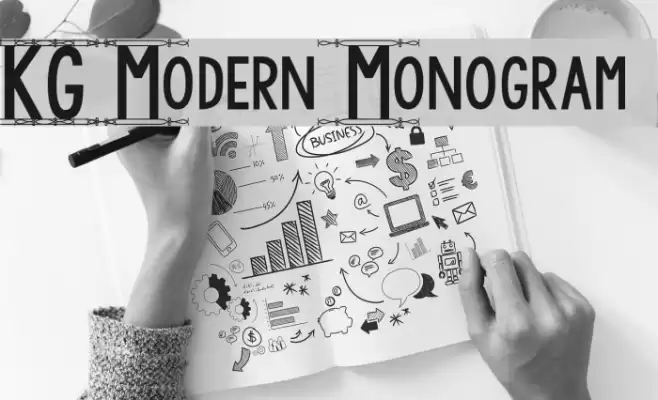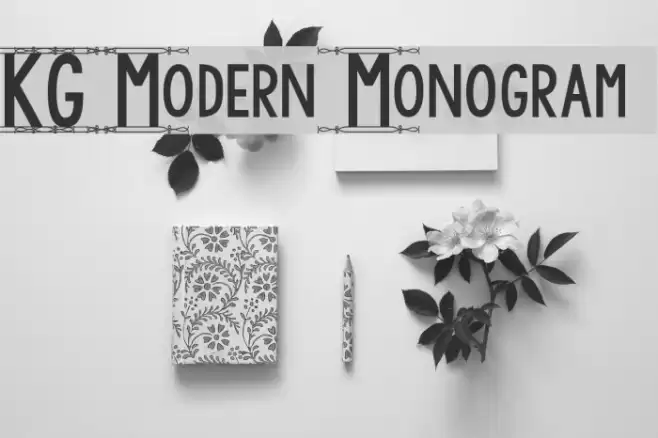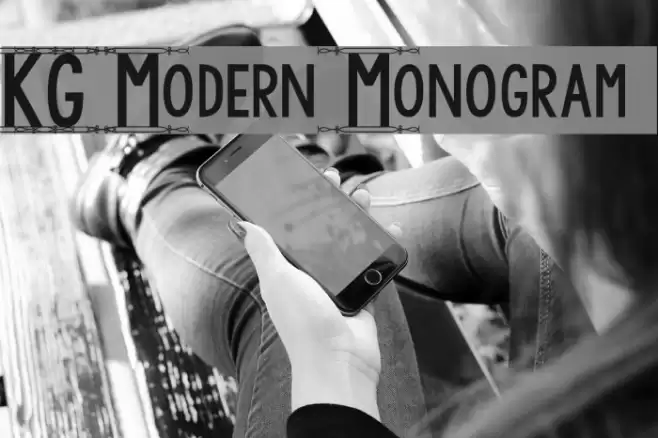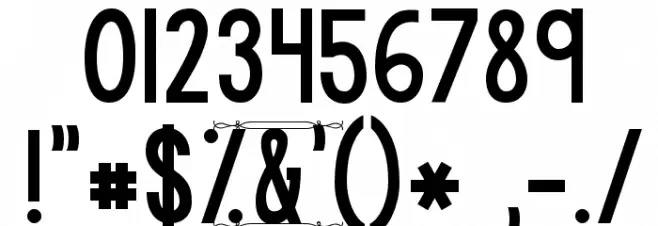
KG Modern Monogram Font
KG Modern Monogram Description
This font features a modern and sleek design with clean, straight lines and a geometric structure. The uppercase letters are bold and prominent, making a strong visual impact. The lowercase letters maintain the same geometric style, offering a cohesive look. Numbers are clear and easy to read, with a consistent thickness throughout. Special characters are uniquely styled, adding a decorative touch that complements the overall modern aesthetic. The font's uniformity and clarity make it suitable for various design applications.
A modern, geometric font with bold uppercase and cohesive lowercase letters from Uncategorized fonts.
- Proposed Projects: Ideal for branding, logos, headlines, and modern design projects.